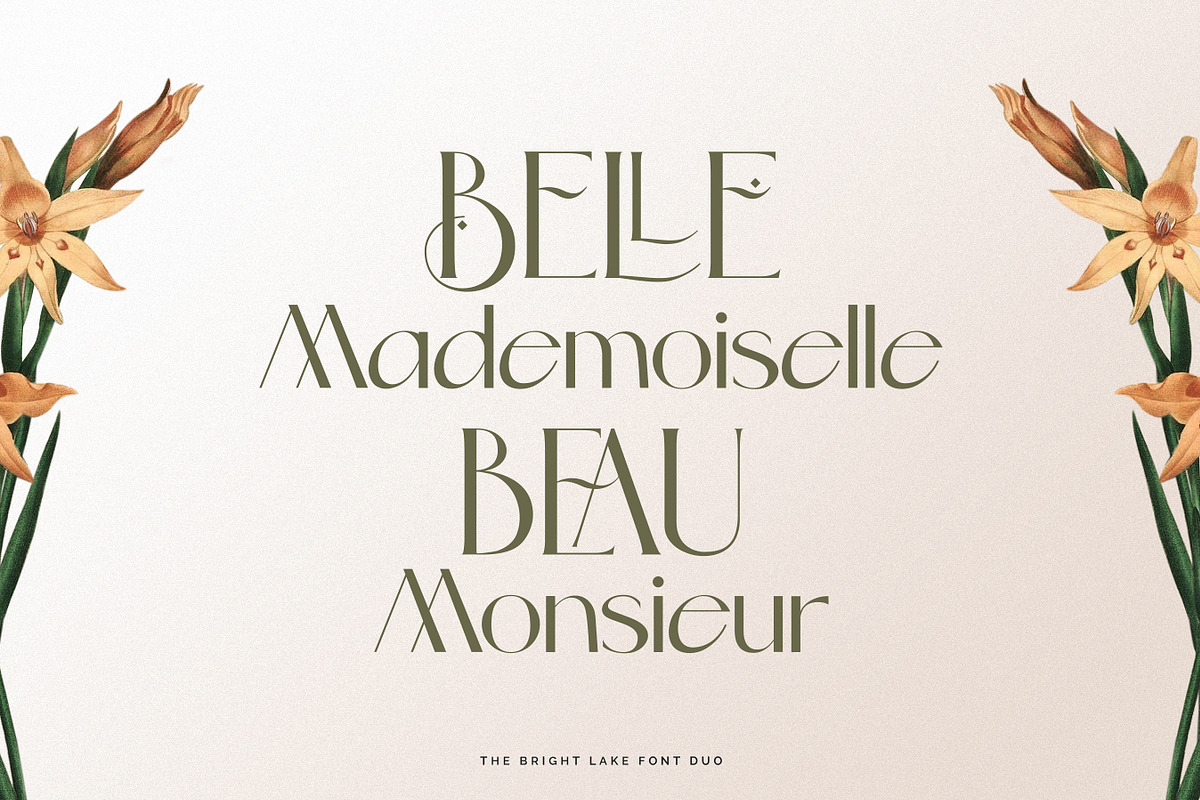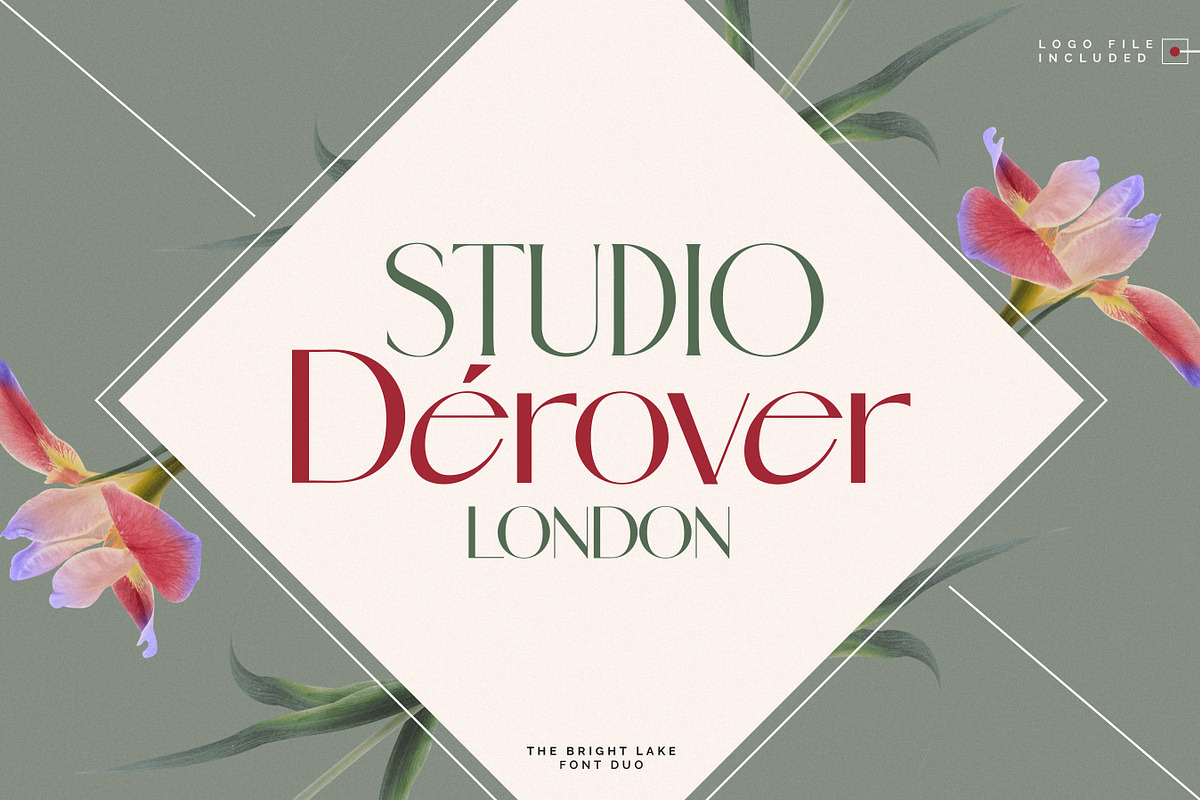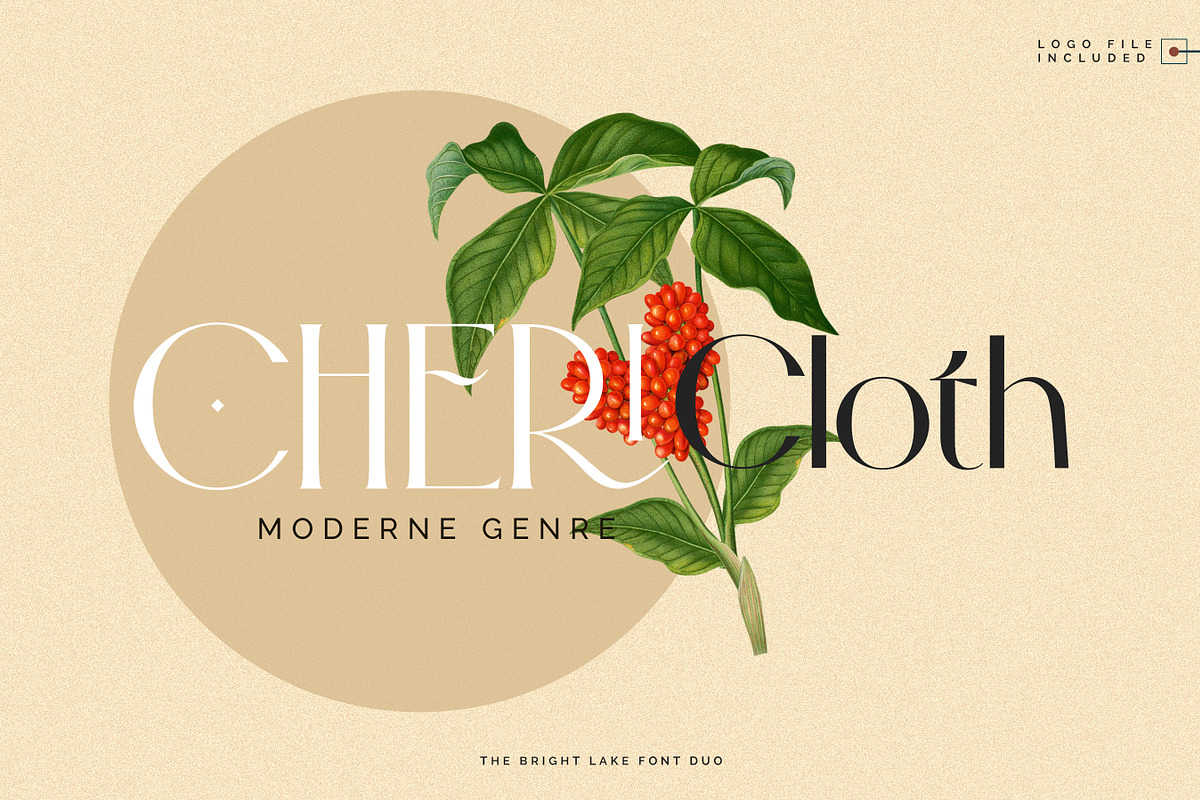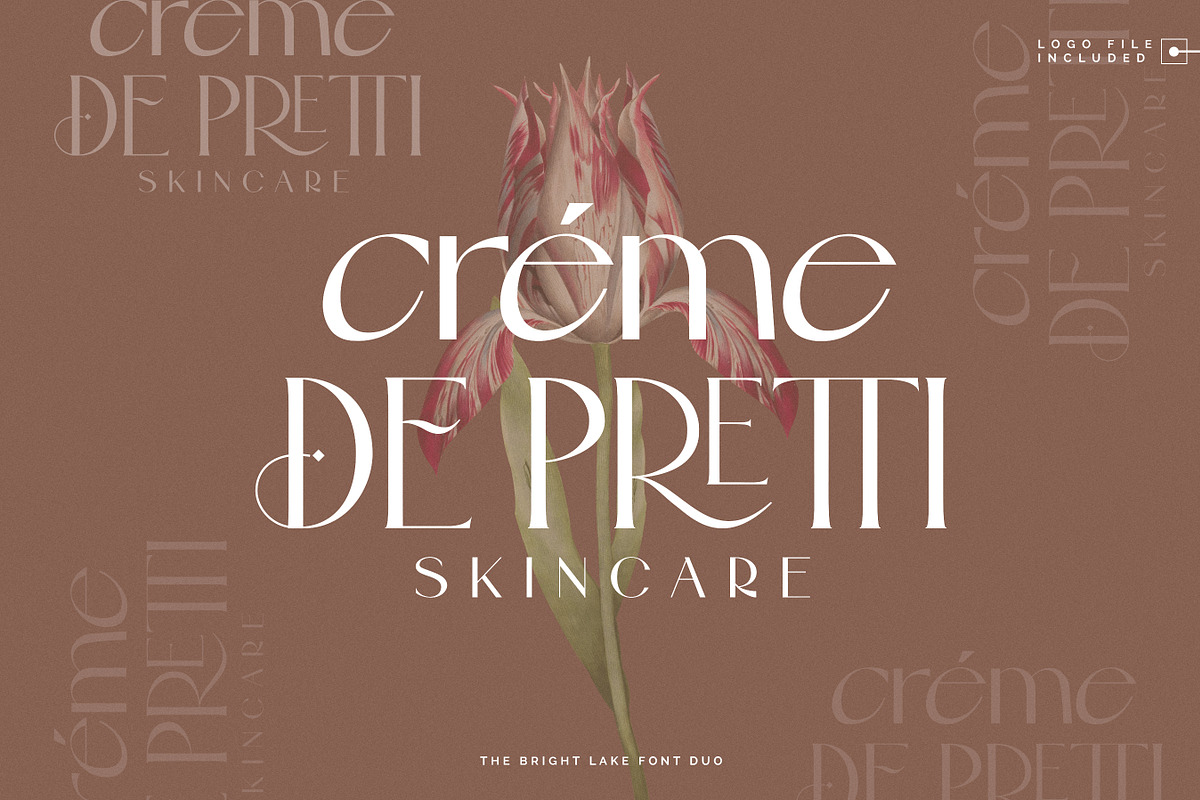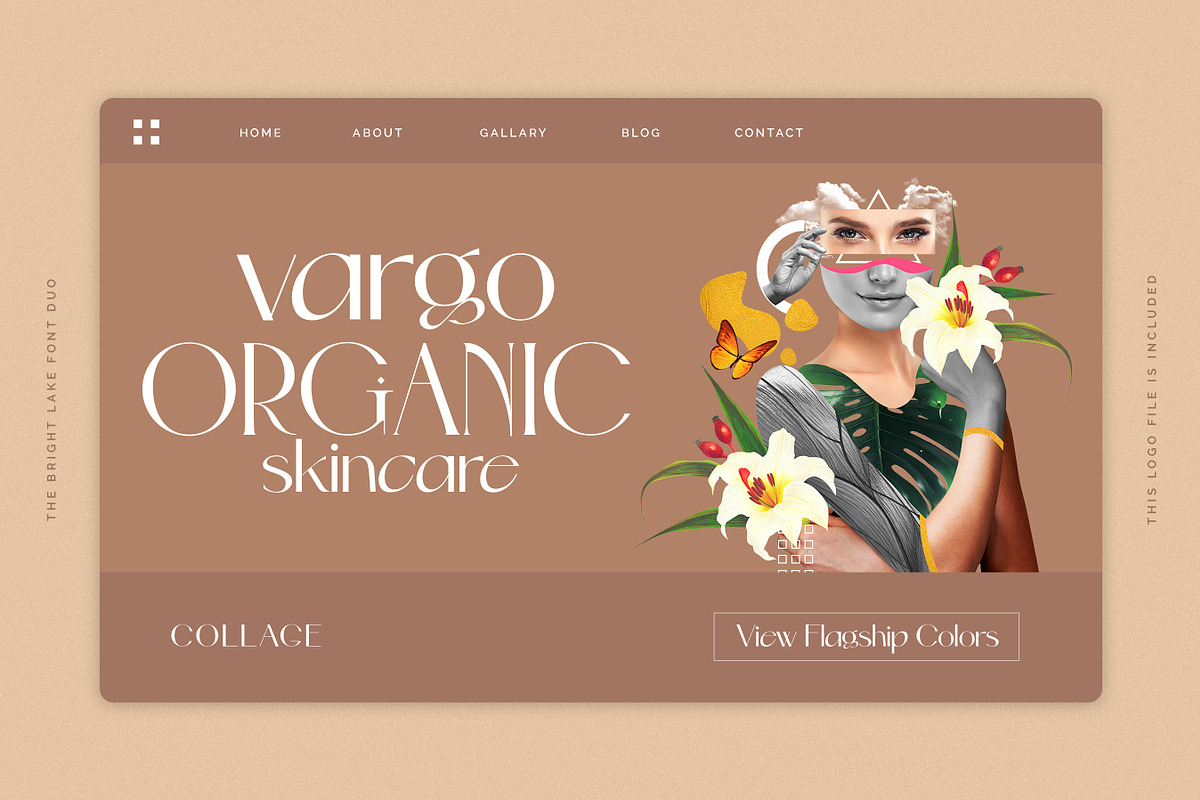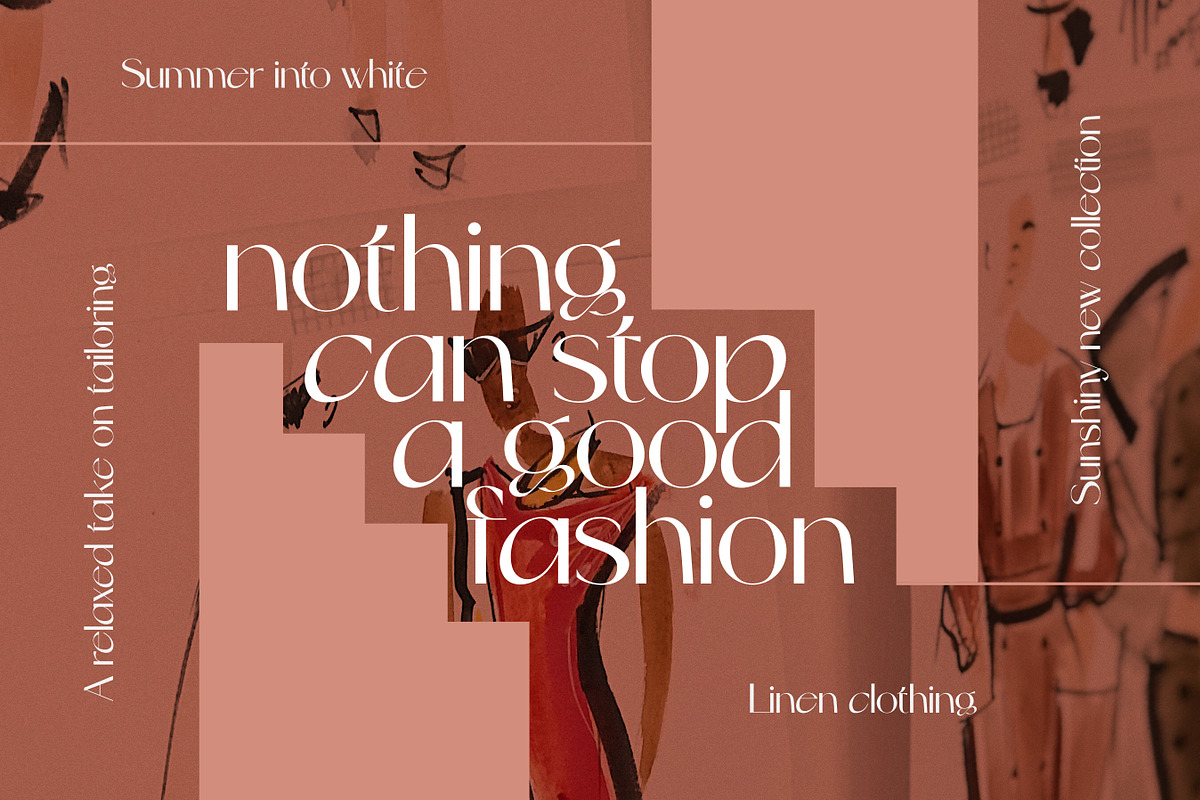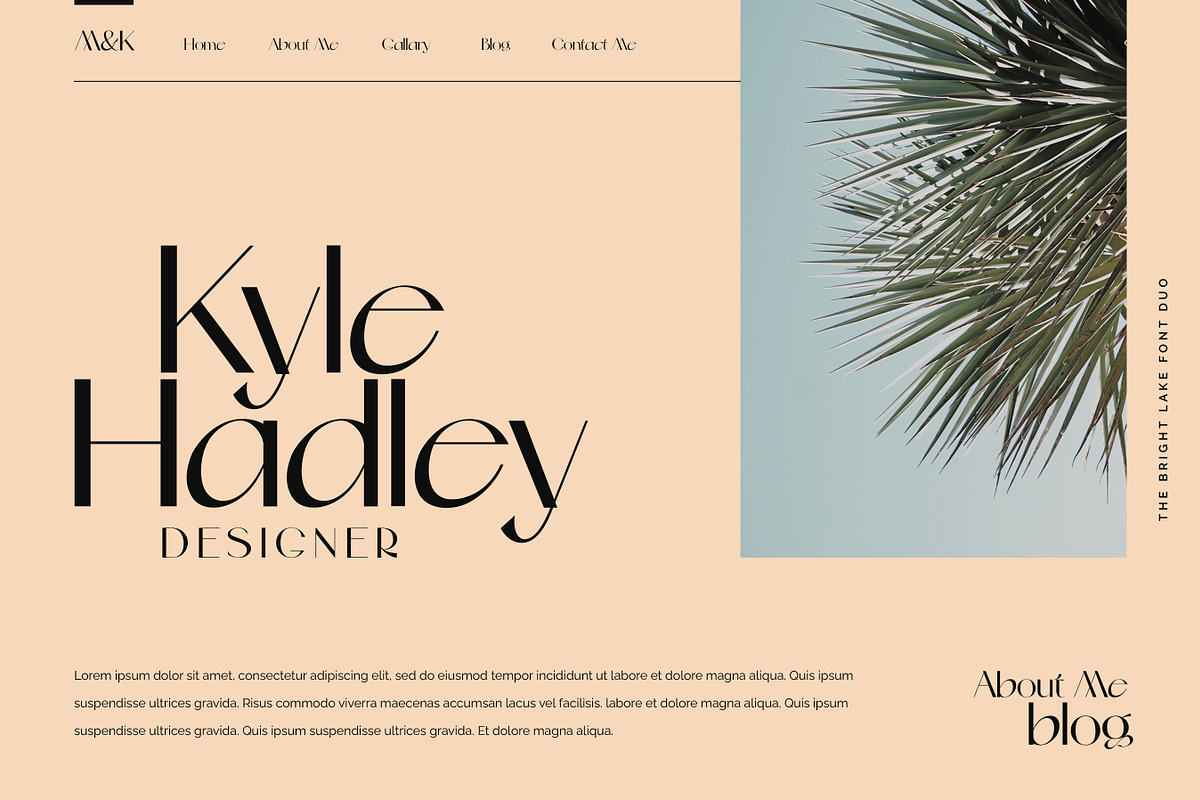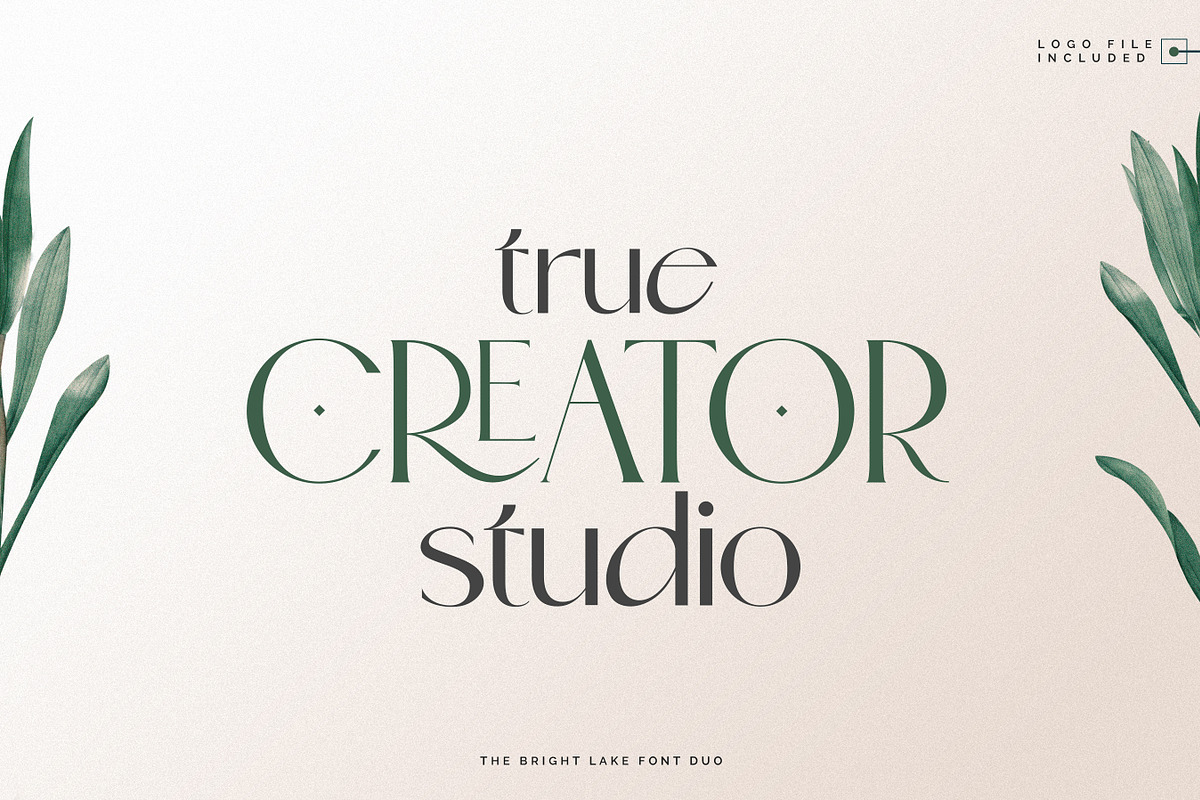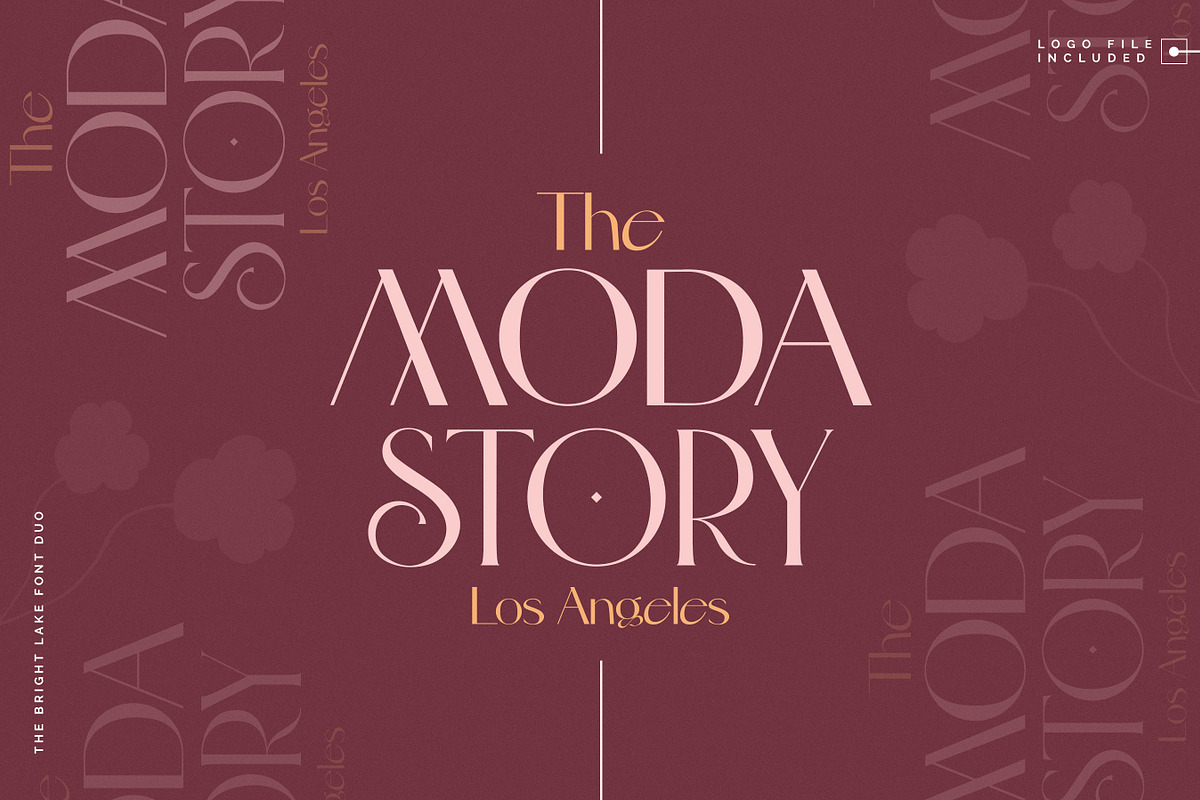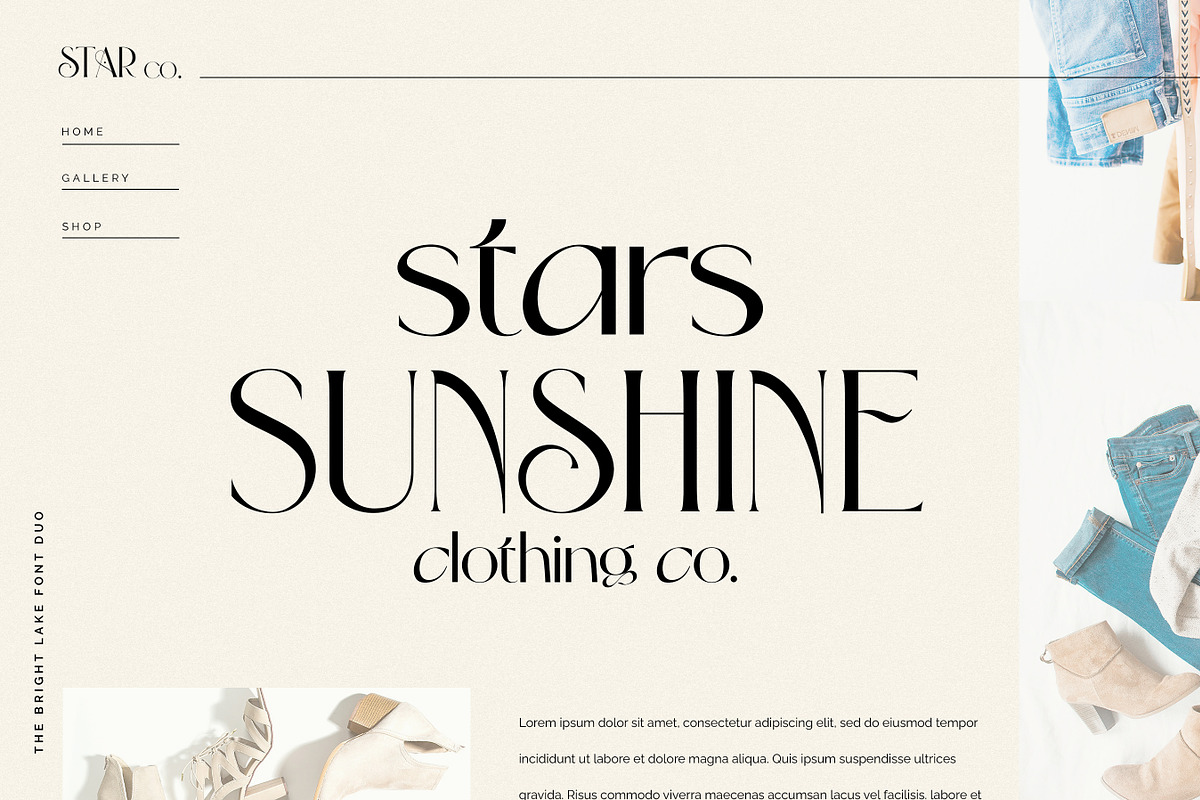
The Bright Lake Font Duo + Logos
The Bright Lake Font Duo is a unique font combo of serif and sans serif with stunning ligatures and alternates. Also, this font duo contains 18 free logos. With this open-type font duo, you can explore your creativity in an unlimited way. To recreate your brand with a unique font combo all you need is to mix and match from The Bright Lake Font Duo. This font duo has full of stylish ligatures, so that your writing with The Bright Lake Font Duo can stand out. Oh, the darling font duo has 18 free logos and those are fully editable with Adobe Photoshop or Adobe Illustrator (PSD, Ai, and EPS).
The Bright Lake ~ Font Duo ~ With Logos ~ On Creative Market, This font pack is perfect for unique classy style, chalkboard style, both modern and vintage style, feminine style, premium style, rustic, simple style branding. The logos and fonts are perfect for Circut, Silhouette vinyl, tattoo, and bullet journal inspiration.